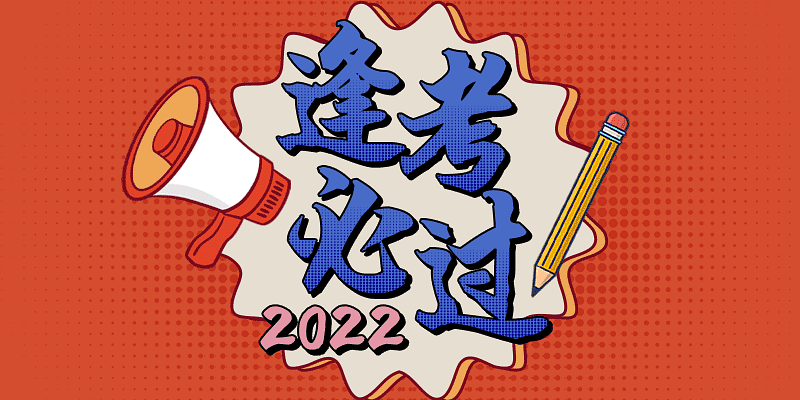
HelloFont ID Wen Ren Bang Shu Font Free Download is a traditional Chinese-inspired typeface that beautifully combines classical brushstroke influences with a modern, clean design. Featuring elegant and flowing characters, this font is ideal for high-end branding, invitations, cultural event materials, editorial design, and packaging. It captures the essence of timeless elegance while offering versatility and readability.
The HelloFont ID Wen Ren Bang Shu Font is known for its graceful and sophisticated strokes, making it perfect for projects that require a refined and professional touch. Whether you're working on luxury branding, wedding invitations, or creative editorial layouts, this font brings an air of refinement and beauty to any design.